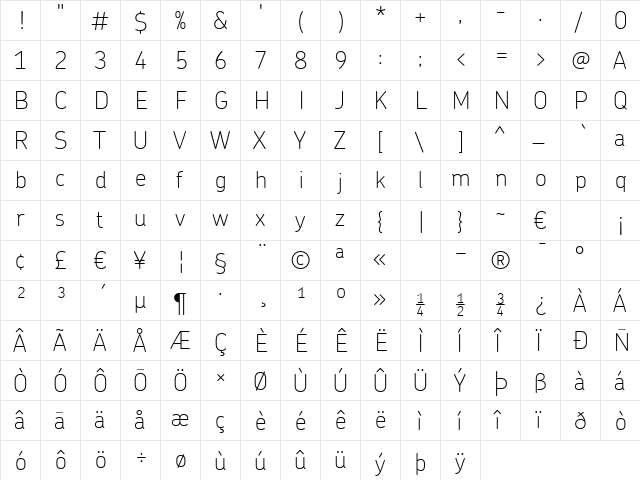
ChevinThin Regular
Design Context for ChevinThin Typeface
ChevinThin offers clean, dependable letterforms without strong stylistic allegiance, making it a practical choice for designers who need flexibility. The delicate stroke weight brings airiness and refinement to layouts.